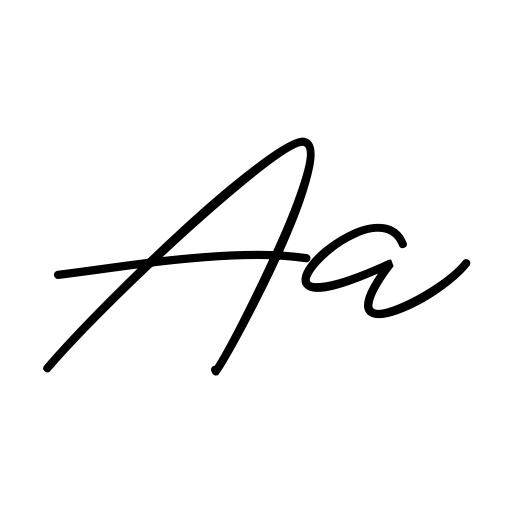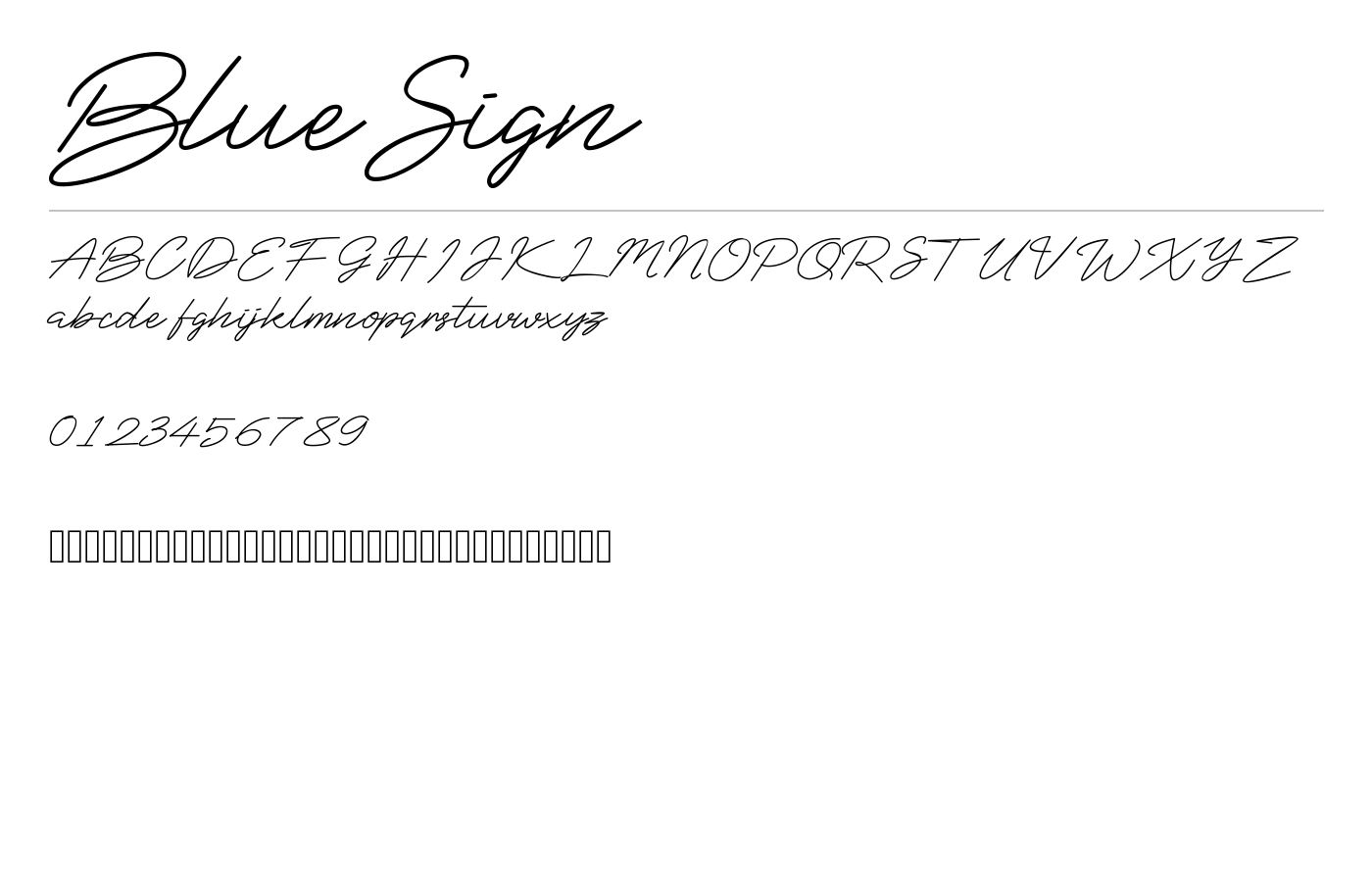
BlueSign is a delicate, elegant script font that features a smooth, flowing handwritten style with slender, graceful strokes. Its light weight and refined letterforms convey a sophisticated and personal touch, making it ideal for invitations, branding, and anything that benefits from a stylish, intimate feel. This font works beautifully for fashion, beauty, and lifestyle projects where a chic, modern script adds a sense of luxury and warmth.
BlueSign Font
About BlueSign Font